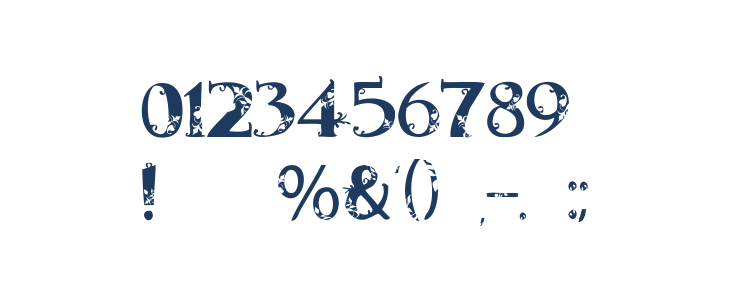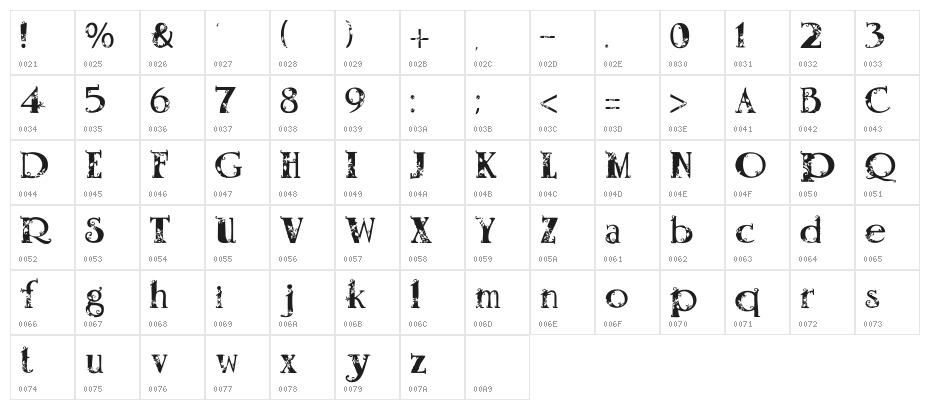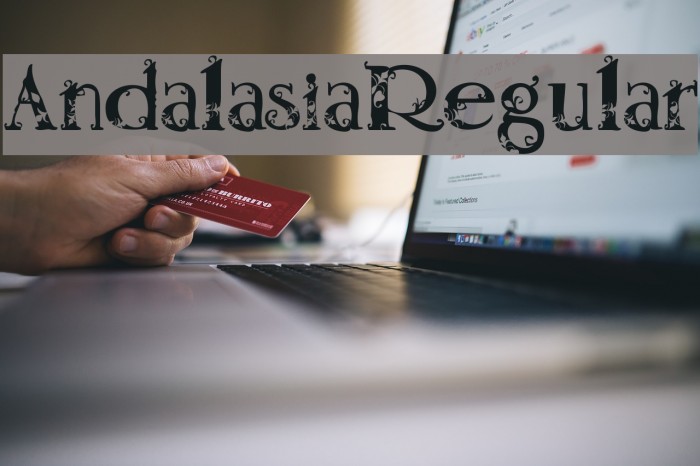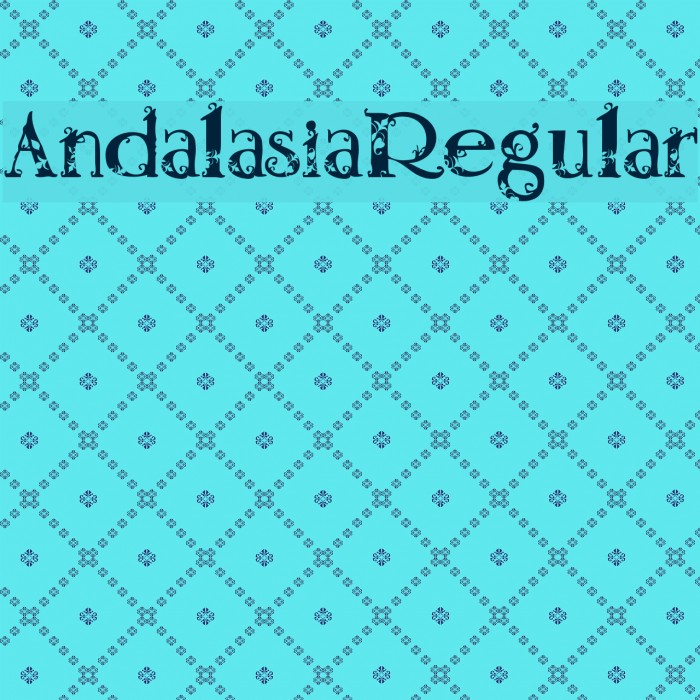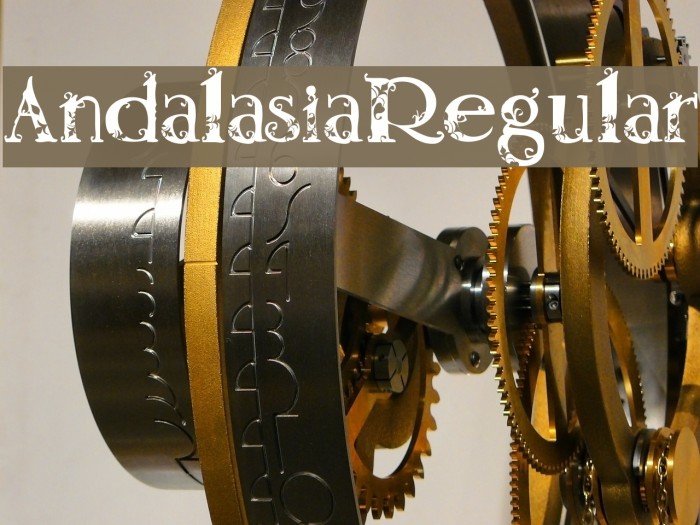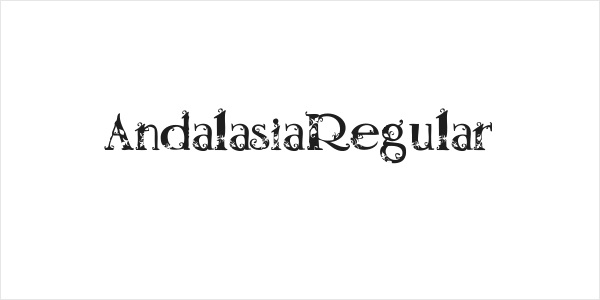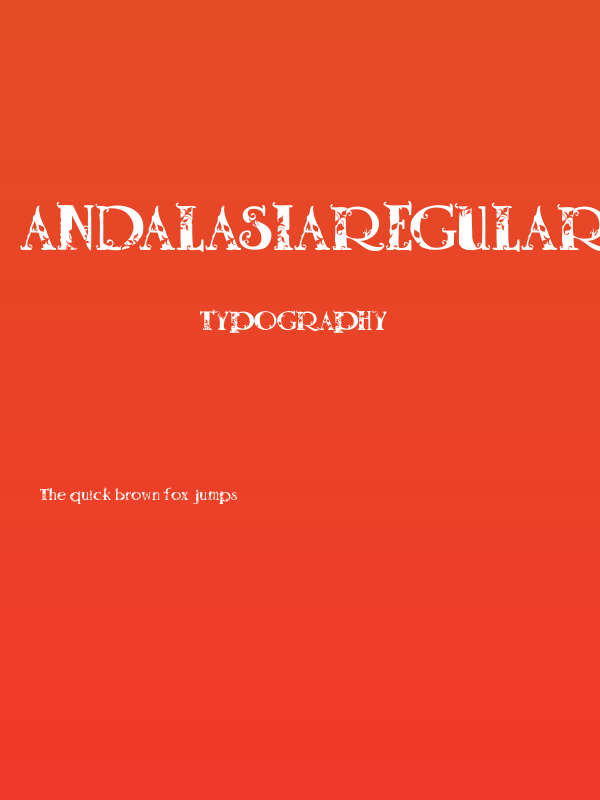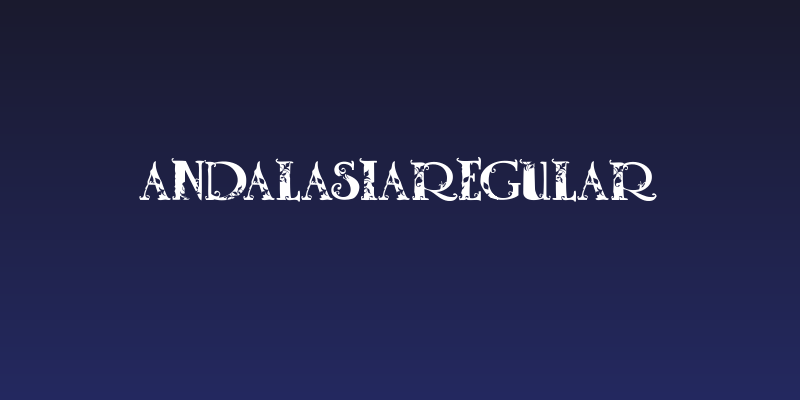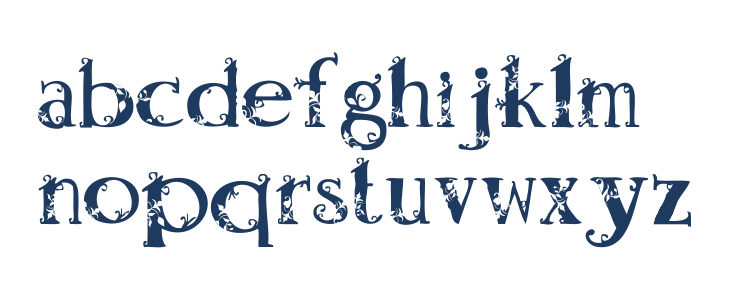
AndalasiaRegular Font
AndalasiaRegular Description
This font features an ornate and decorative style, with intricate floral patterns integrated into each character. The uppercase and lowercase letters maintain a consistent design, with embellishments that add a touch of elegance and sophistication. The numerals and special characters also follow this decorative theme, making the font suitable for artistic and creative projects. The overall appearance is bold and eye-catching, with a unique blend of classic and modern elements.